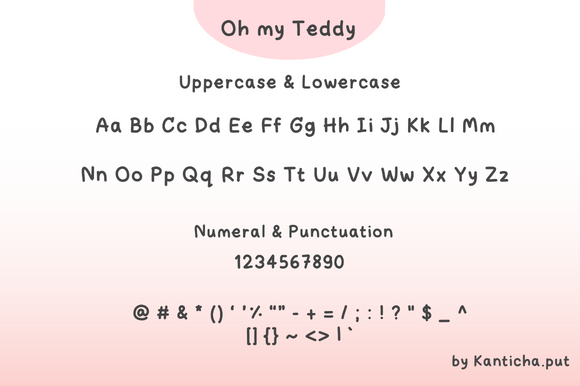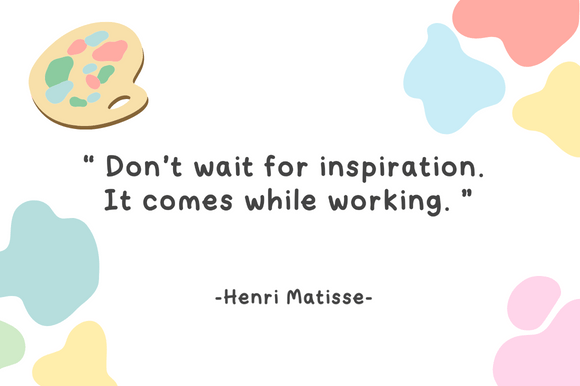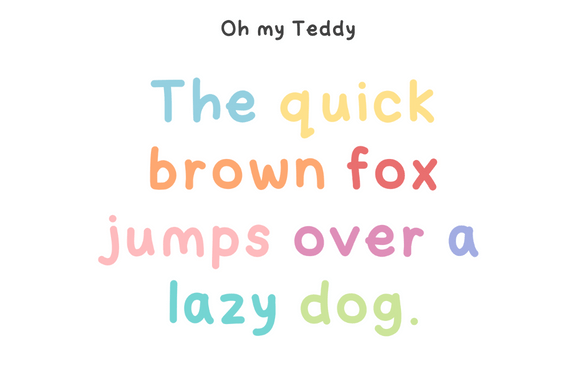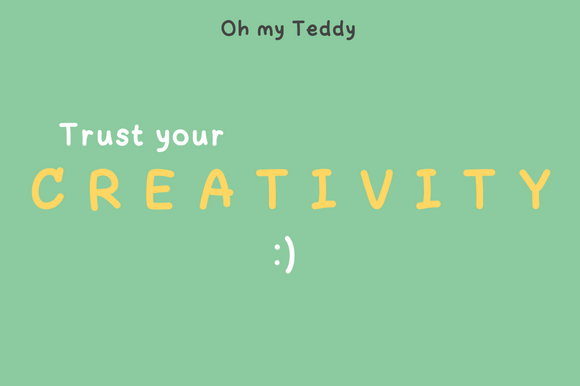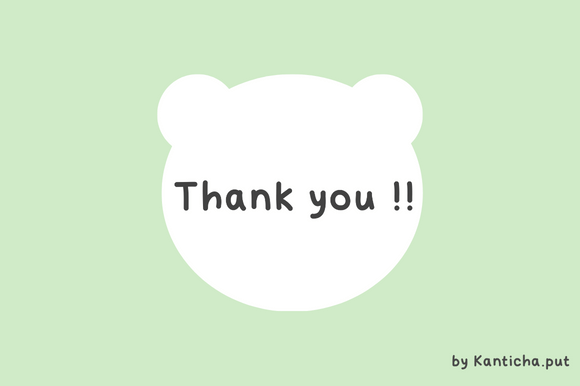
Introduction to Oh My Teddy Font
Oh My Teddy is a fun and casual handwritten font.
This font is suitable for a wide pool of design ideas .
Key Features of Oh My Teddy Font
Why Choose Oh My Teddy Font?